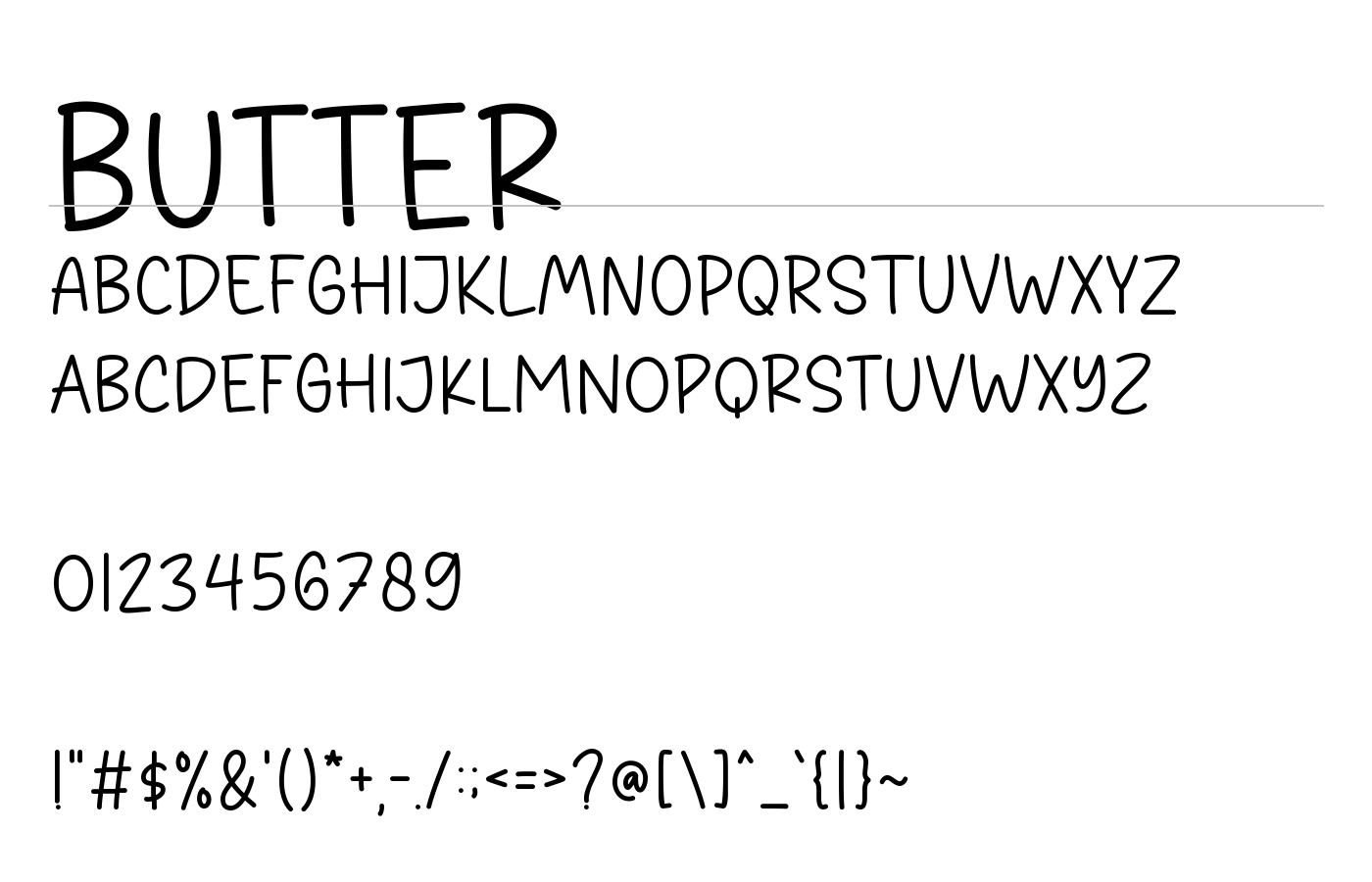
Butter Font is a playful and casual handwritten sans serif with a light weight and tall, narrow letterforms that feel friendly and approachable. Its smooth, rounded strokes and slightly irregular shapes give it an informal, charming style perfect for fun branding, children’s materials, or any design needing a personal, whimsical touch. This font works well in headlines and packaging where a warm, inviting tone is desired.
Butter Font
About Butter Font